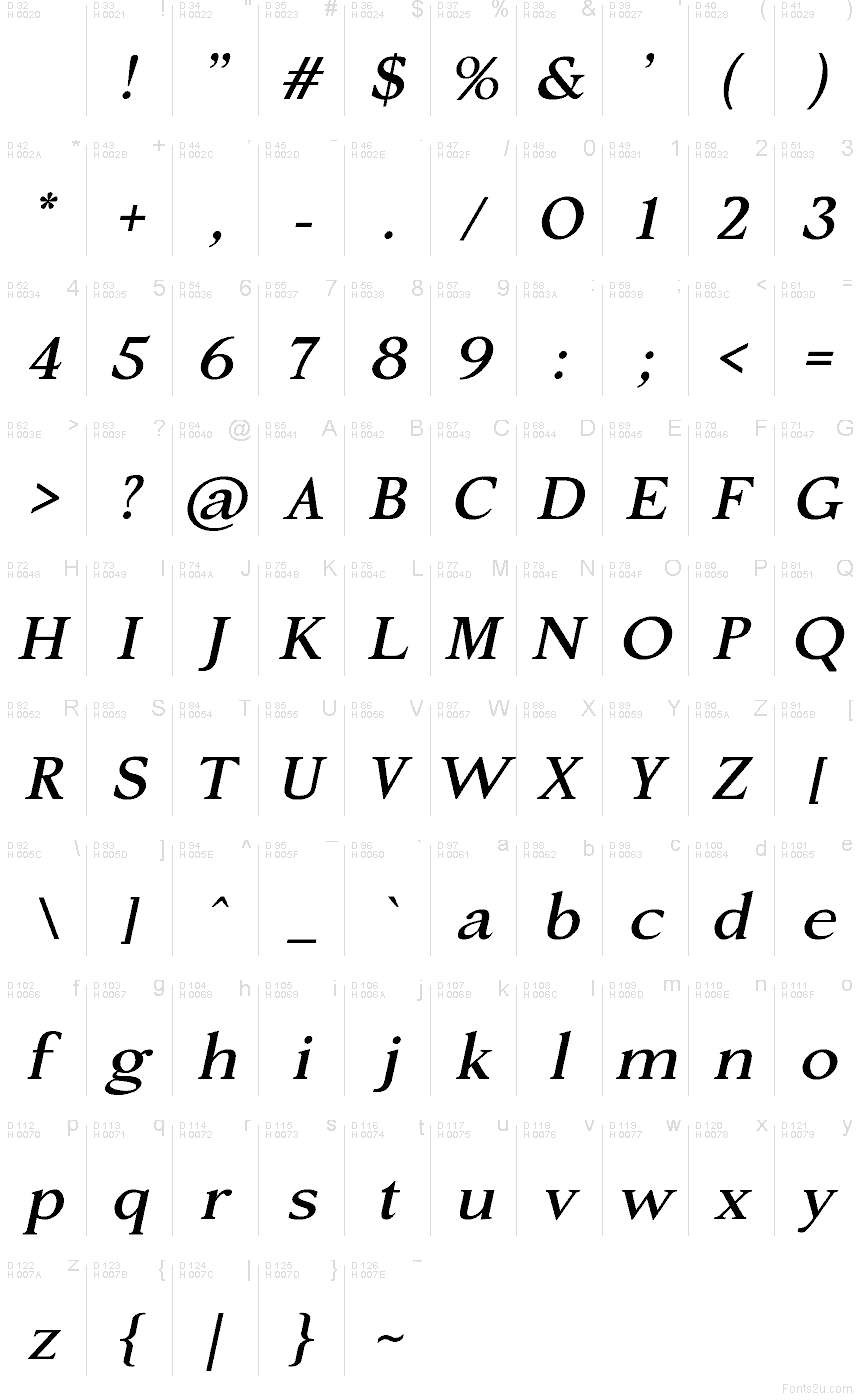
Silent Citadel Italic font by Muhamad Fikry Nuralif of Fikryal Studio, from the Silent Citadel family, is a free serif font with a brisk, confident slant and crisp, chiseled edges. Its inky curves and sharp little cuts give headlines a noble, storybook bite-dramatic without getting fussy, and smooth enough to stay readable.
Using Silent Citadel Italic, you’ll get strong results on book covers, film titles, editorial pull quotes, luxury packaging, brand wordmarks, event posters, and album artwork. Set it a touch loose with generous letter spacing, then pair this free font with a clean sans for body copy to keep the mood polished.